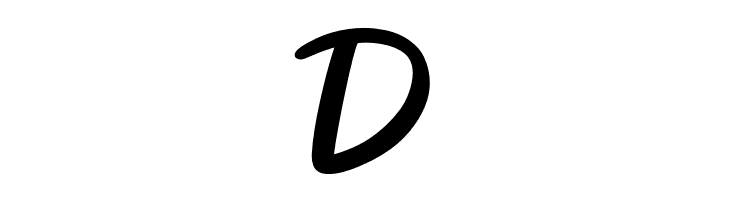
A bold, geometric font with a 3D effect, perfect for striking headlines.
A bold, decorative font with a filled, shadowed effect and geometric influence.
A bold, geometric font with a three-dimensional effect and intricate detailing.
A bold, decorative font with a hollow, 3D appearance and strong contrast.
A bold, decorative font with a 3D effect and geometric precision.
An ornate Blackletter font with intricate swirls and bold strokes.
A bold, geometric font with a modern, angular design.
A bold, geometric outline font with a futuristic and industrial design.
An elegant script font with flowing, decorative swashes and a modern calligraphic style.
An elegant script font with flowing, graceful curves and ornate flourishes.
A flowing, cursive font with elegant, handwritten characteristics.
A bold, playful font with rounded, hand-drawn characters.
A gothic-inspired serif font with sharp, angular serifs and pointed terminals.
A bold, gothic-inspired font with sharp serifs and unique letterforms.
An ornate, decorative font with intricate floral patterns in each letter.
A bold, Gothic-inspired font with strong serifs and high contrast strokes.
A bold, blackletter-inspired font with a medieval and decorative style.
A bold, high-contrast font with elegant and decorative elements.
A bold, distressed font with sharp serifs and a rugged, edgy style.
A dynamic handwritten font with fluid strokes and expressive style.
A dynamic, expressive handwritten font with fluid strokes and playful elegance.
A bold, three-dimensional font with a block-like, embossed appearance.
A dynamic handwritten font with fluid, slightly slanted letterforms and a lively, personal touch.
A lively handwritten font with dynamic strokes and playful tilt.
A motif-based decorative symbol set with bold, intricate designs.
A bold, dynamic font with a slight italic slant, perfect for impactful designs.
A bold, geometric font with a futuristic and industrial design.
A bold, brush-stroke style font with a rugged, hand-painted look.